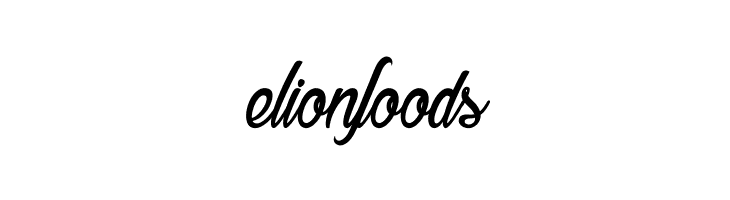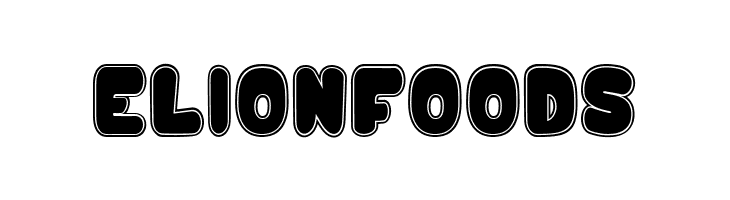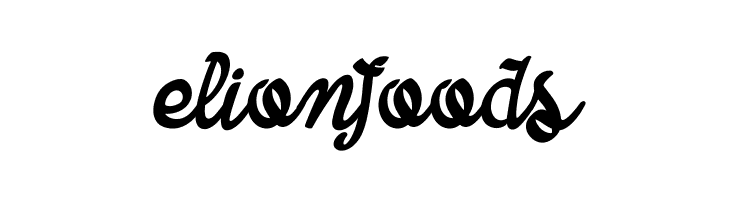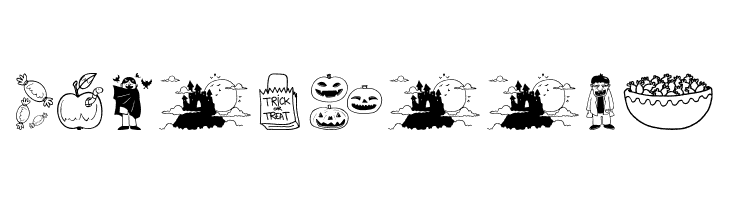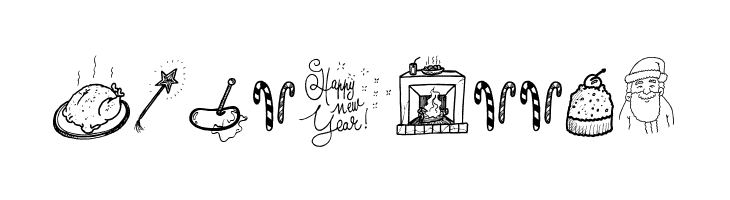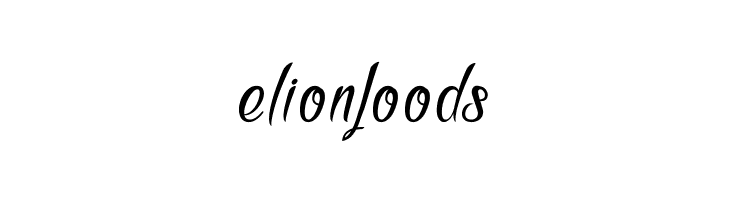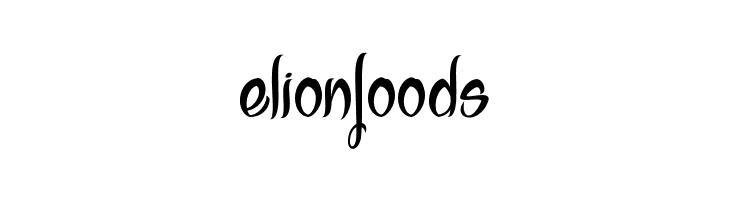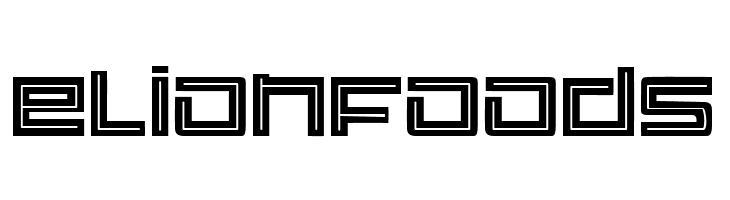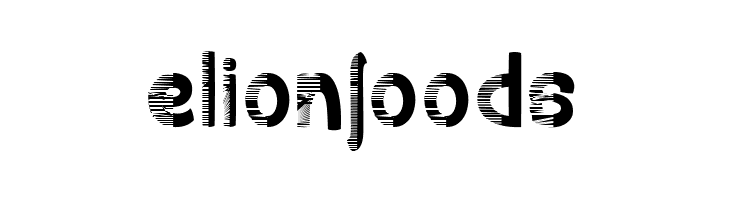
• Baldaquin 2_PersonalUseOnly
A dynamic and elegant script font with fluid, slanted letterforms.
• Kaboom_PersonalUseOnly
A bold, playful font with rounded, outlined characters perfect for fun and energetic designs.
• Livie_PersonalUseOnly
A bold, decorative script font with flowing cursive elements.
• Halloween Bell_PersonalUseOnly
A whimsical, Halloween-themed font featuring playful hand-drawn illustrations.
• Santalloween_PersonalUseOnly
A collection of festive and decorative holiday-themed illustrations.
• Bandits_PersonalUseOnly
A dynamic and flowing script font with elegant curves and a slightly slanted style.
• Akodia_PersonalUseOnly
A whimsical, cursive-like font with artistic flair and elegance.
• Andromelia_PersonalUseOnly
A bold, geometric font with a futuristic and structured design.
• Nizlok_PersonalUseOnly
A decorative font with a striped pattern and bold, modern design.
• Slamer_PersonalUseOnly
A bold, cursive font with fluid, interconnected letters and elegant flourishes.